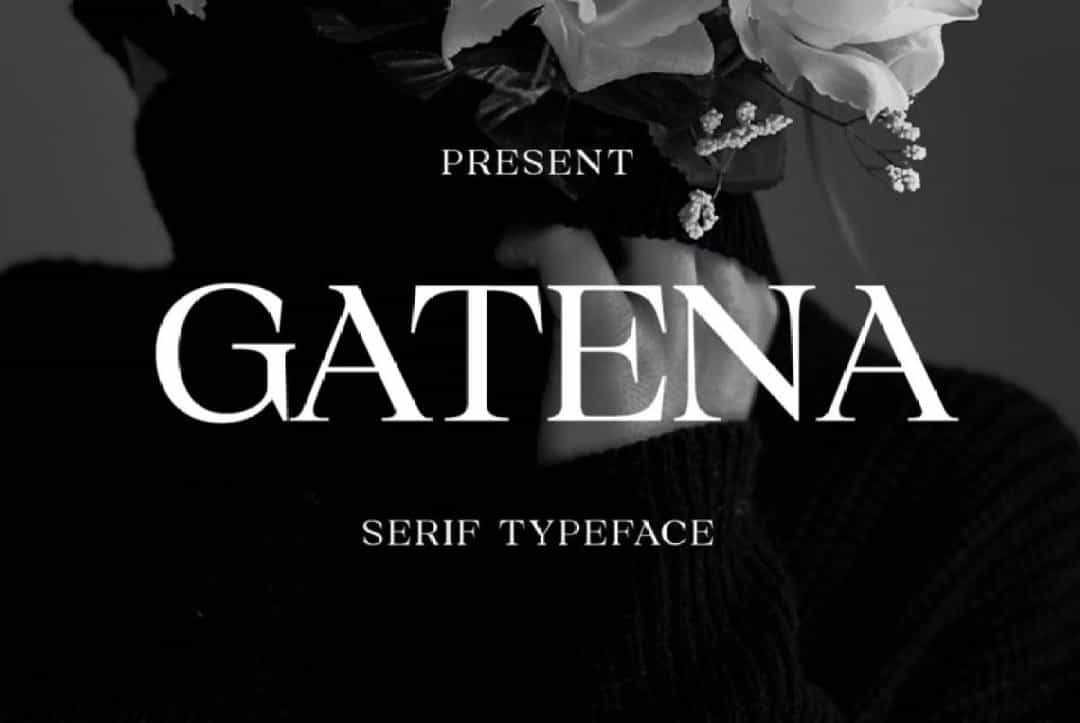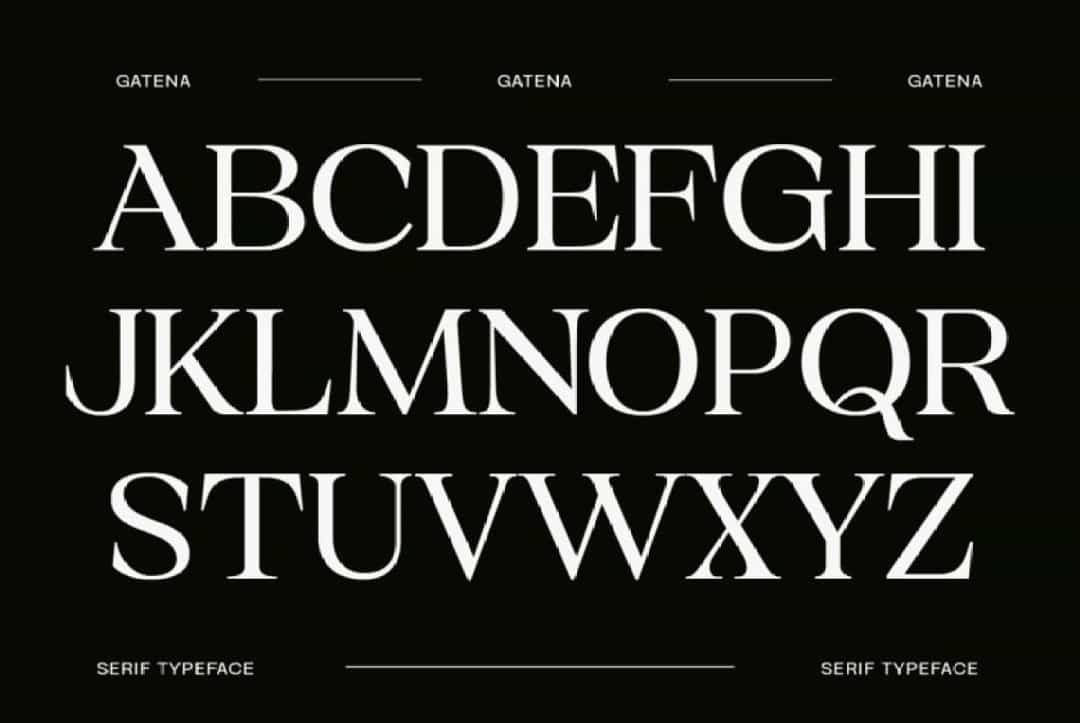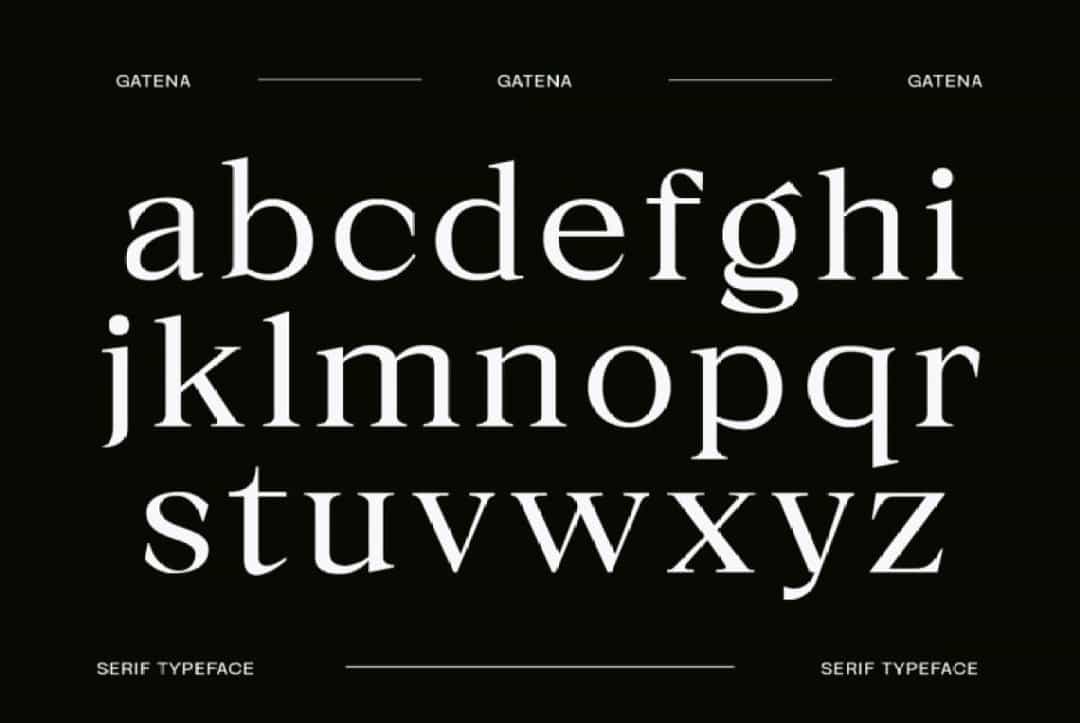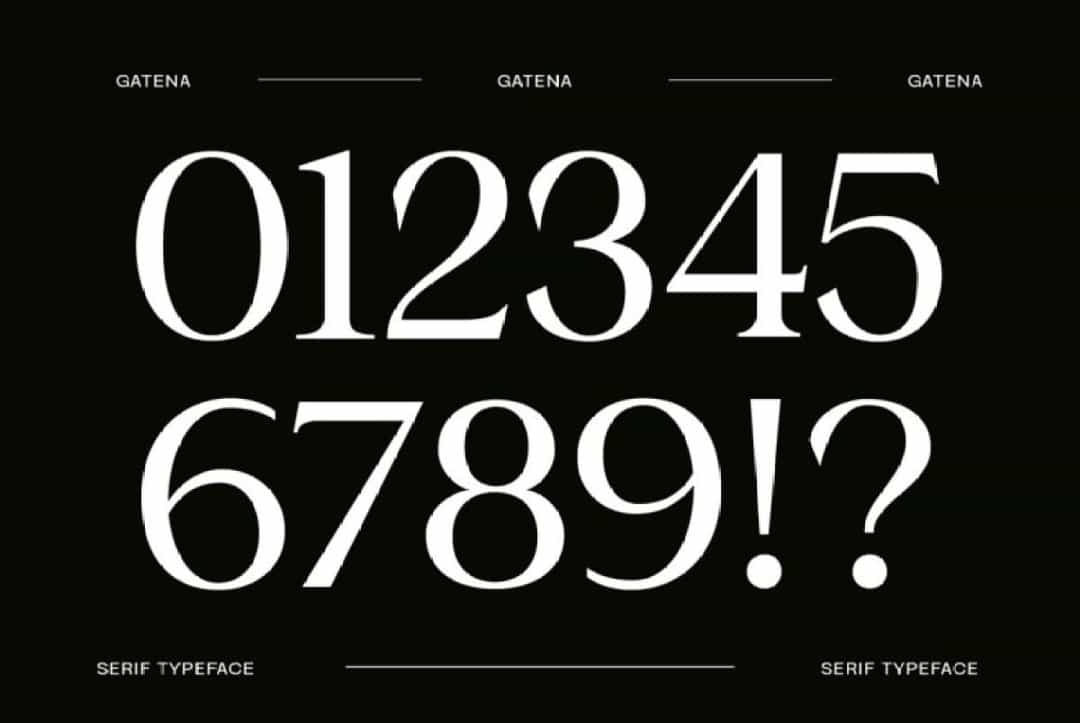
Gatena Serif Modern Classic font is a combination of the best of the past and the present, that is luxury and modernity. This font is great for projects that need to exude some luxury and strength due to its smooth and balanced design. Every letter is engraved to the tiniest detail, thus it gives the impression of the best and refined.